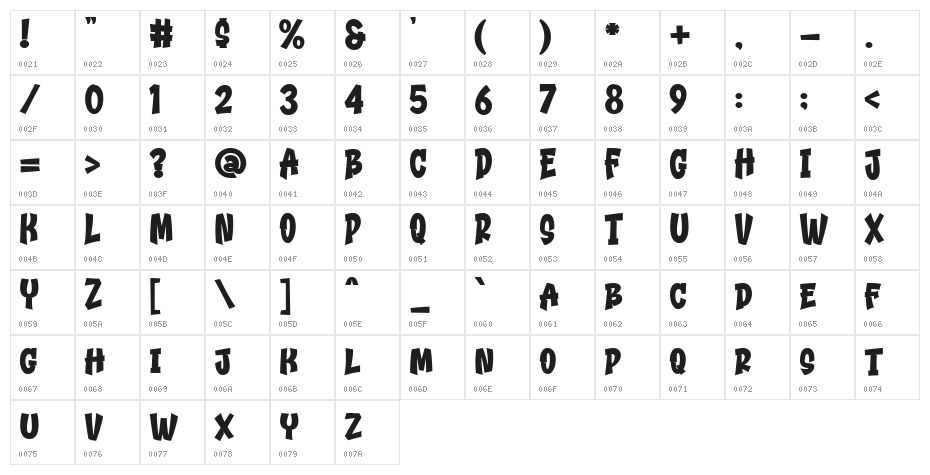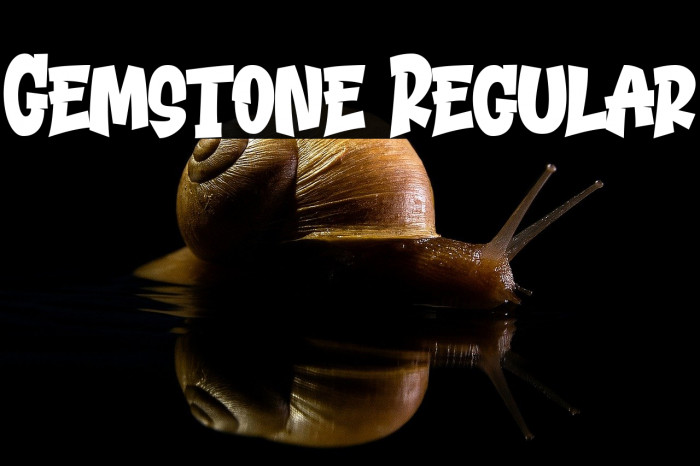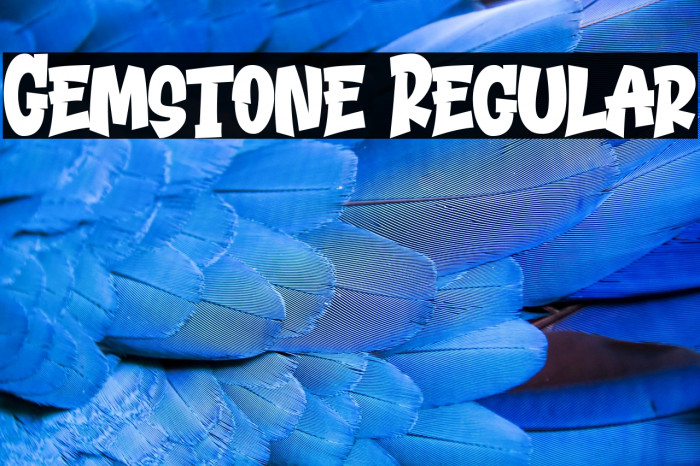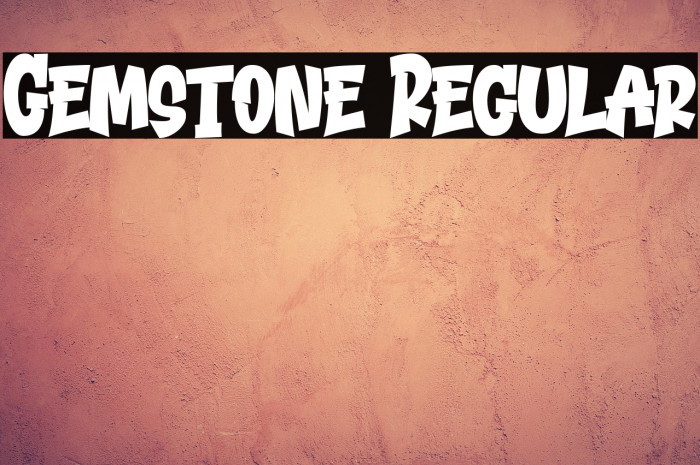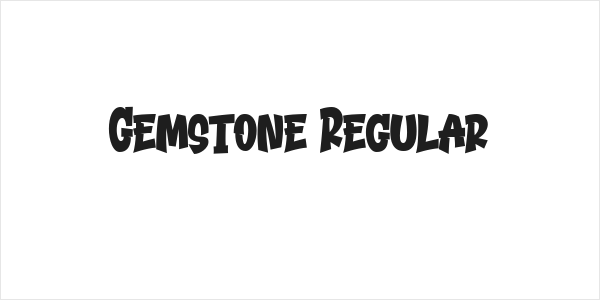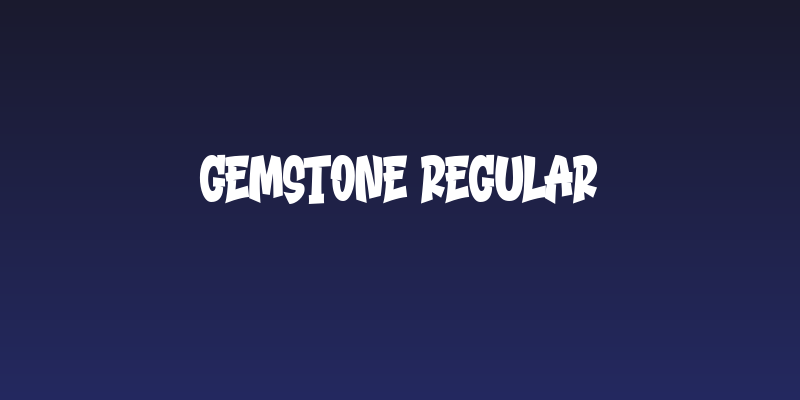
Gemstone Regular Font
Gemstone Regular Description
This font features a bold and dynamic style with exaggerated, angular letterforms that convey a sense of energy and movement. The characters are heavily stylized, with sharp edges and a playful, graffiti-like appearance. The uppercase and lowercase letters maintain a consistent weight, contributing to a cohesive and impactful visual presence. The numbers and special characters follow the same design principles, ensuring uniformity across all glyphs. This font is ideal for projects that require a bold statement or a creative, urban aesthetic.
| Overall Style | Modern, Urban |
| Proposed Projects | Ideal for street art designs, urban-themed posters, music album covers, and bold branding projects. |